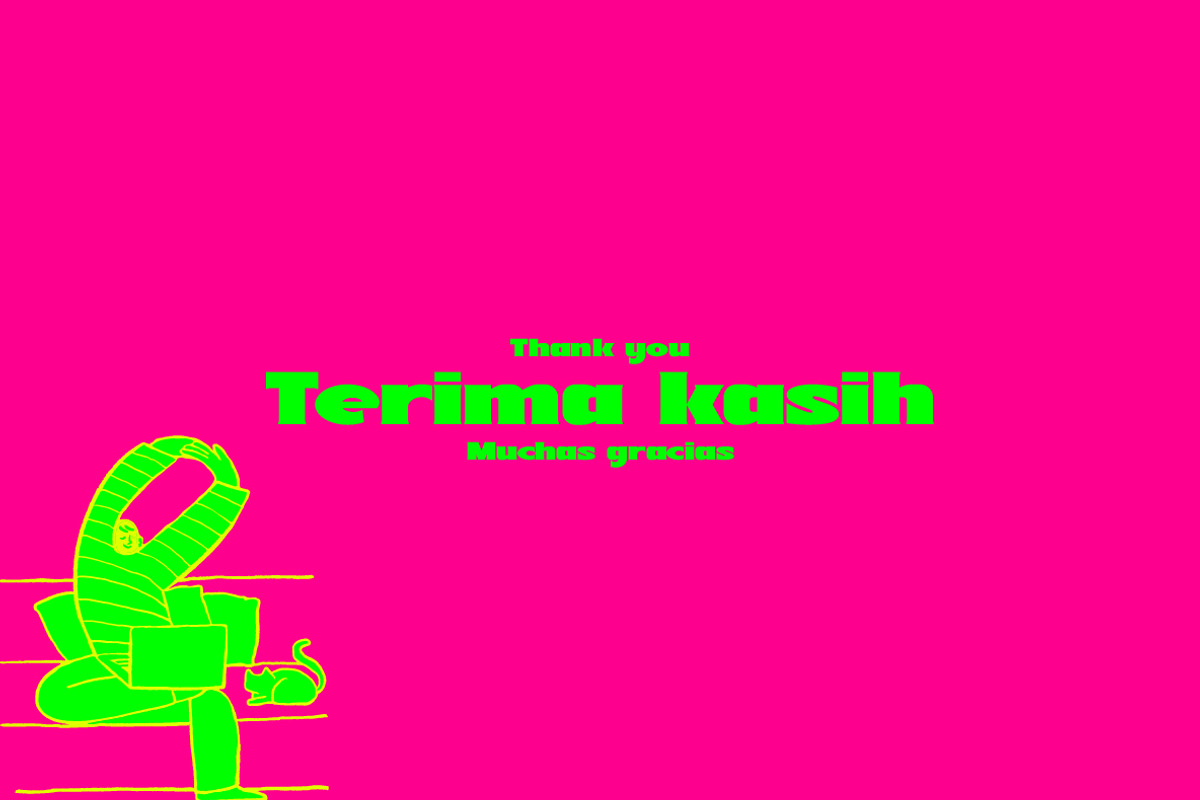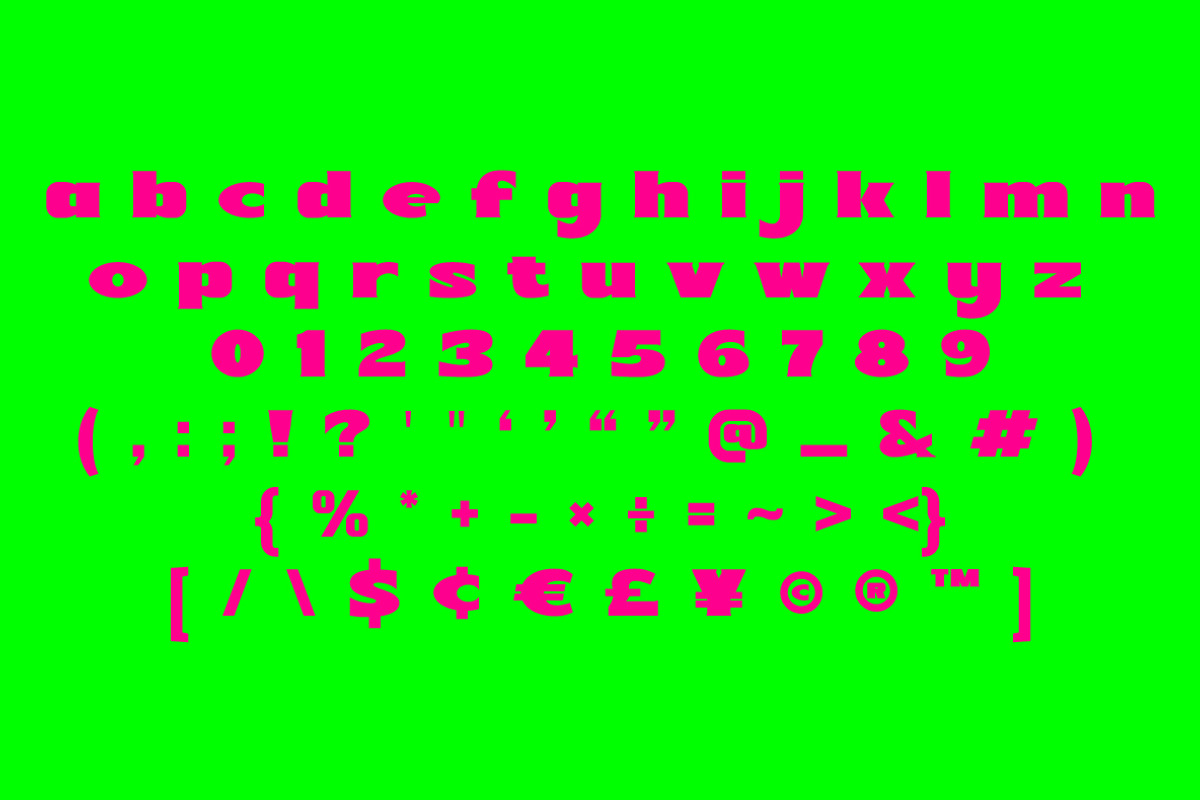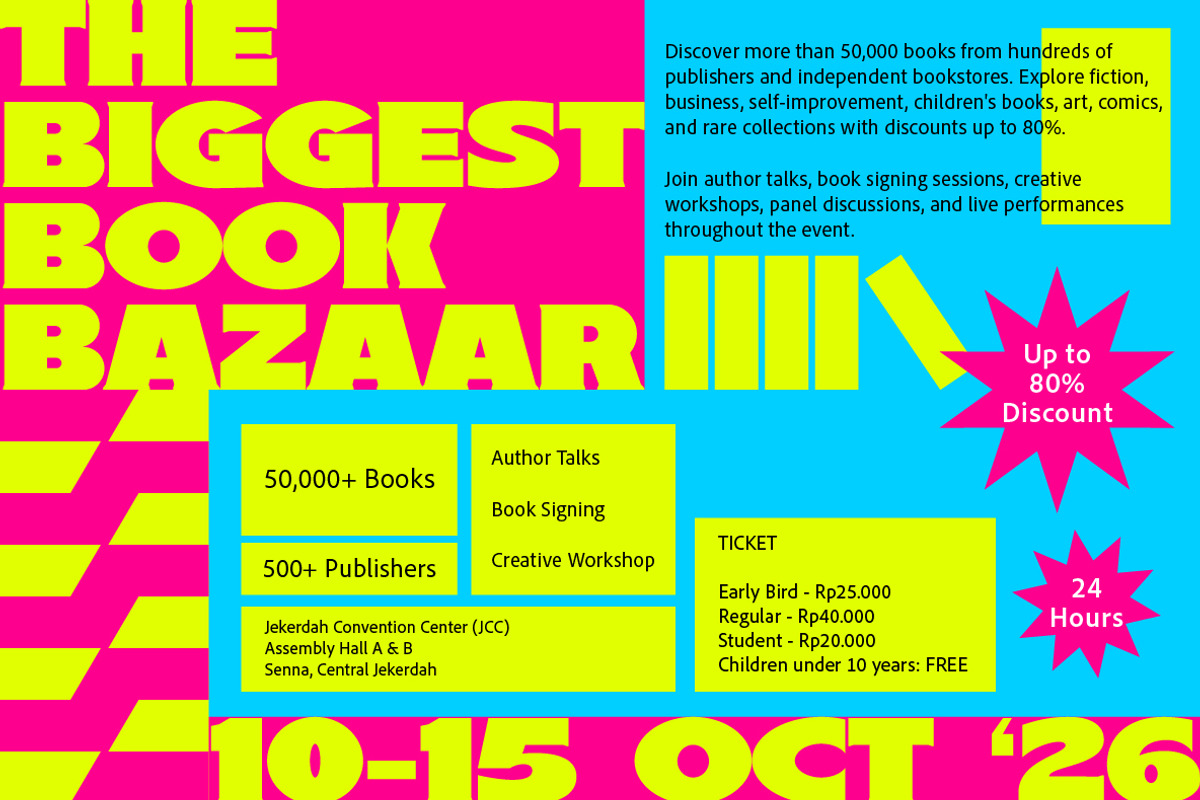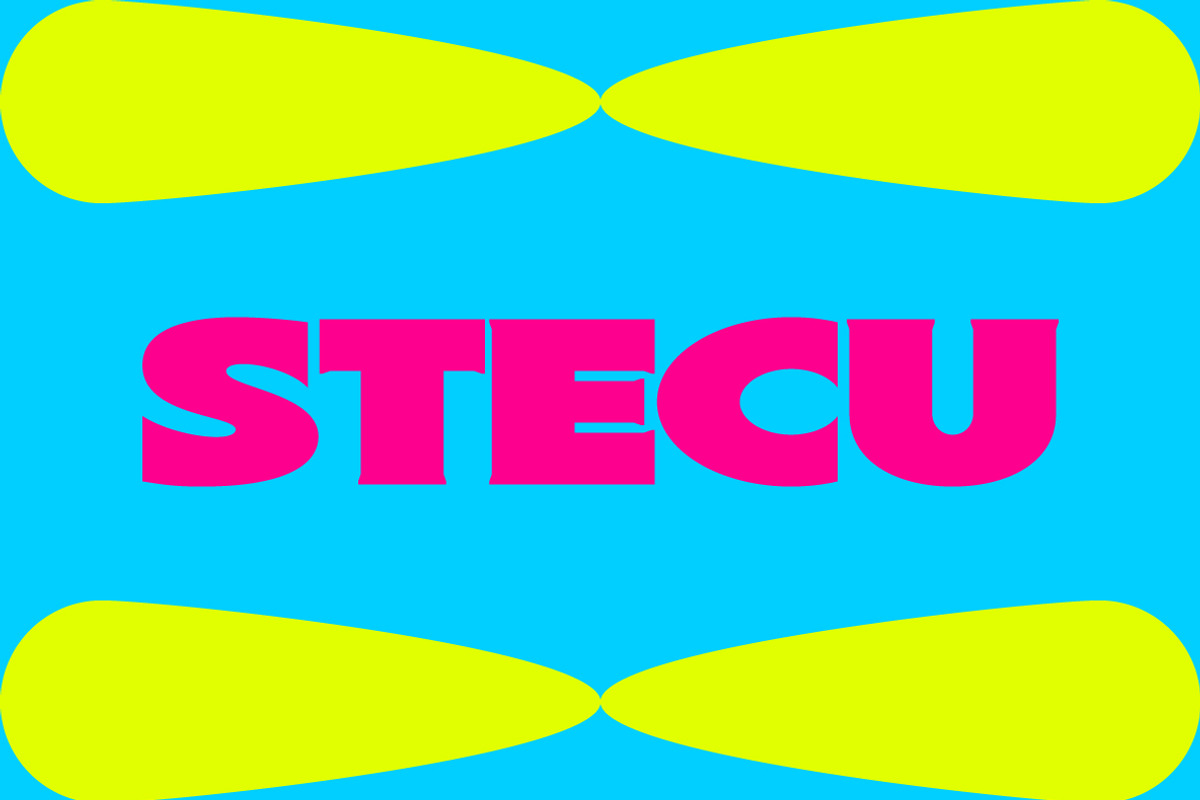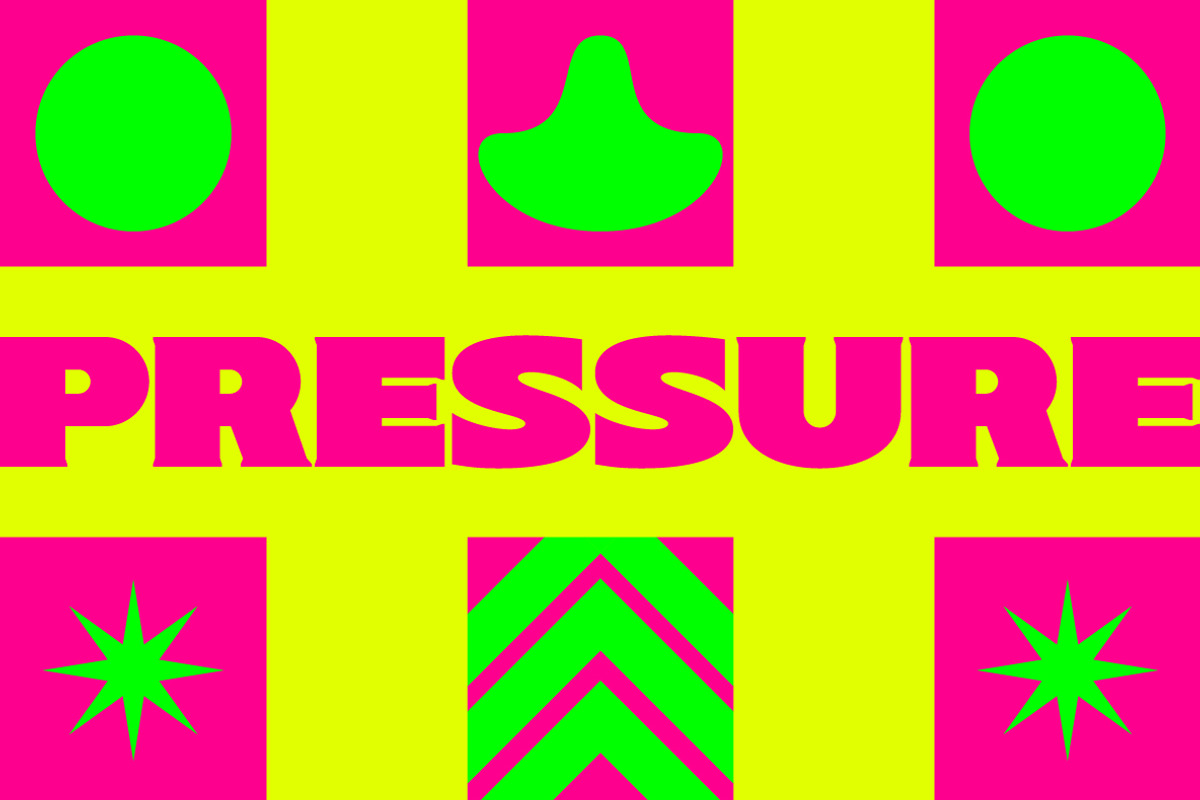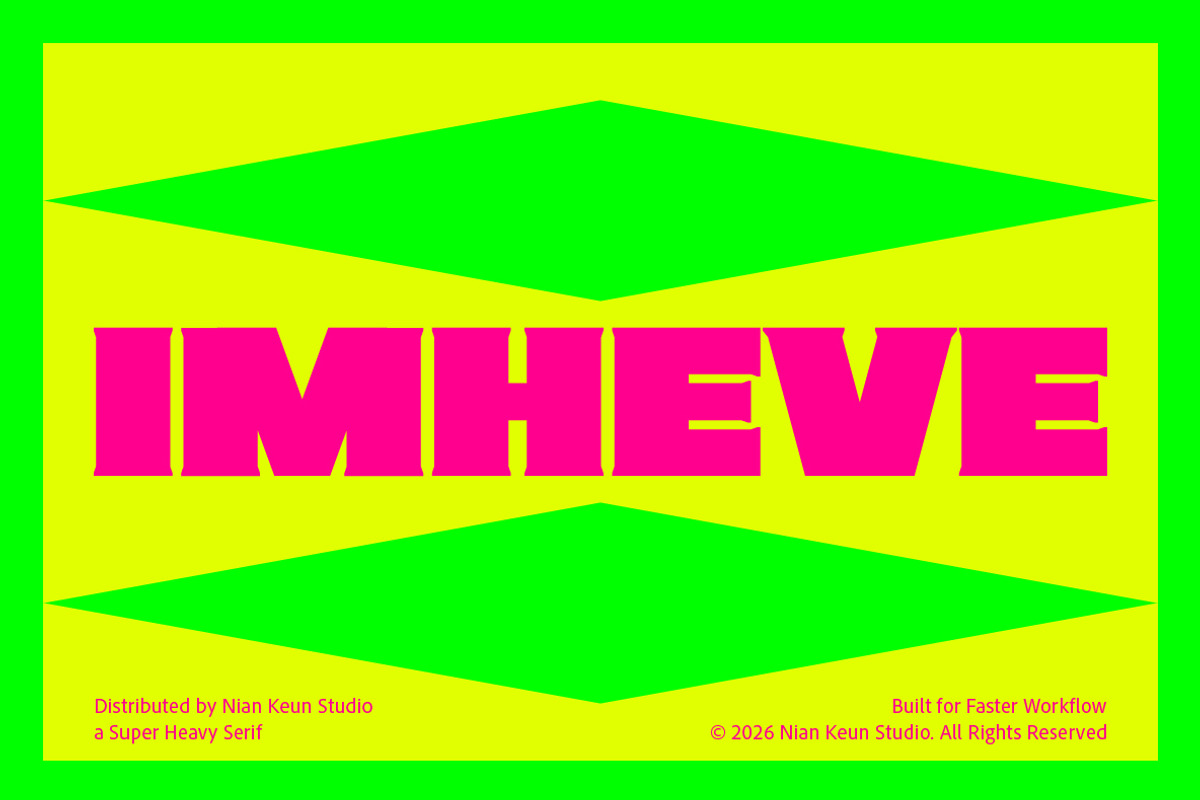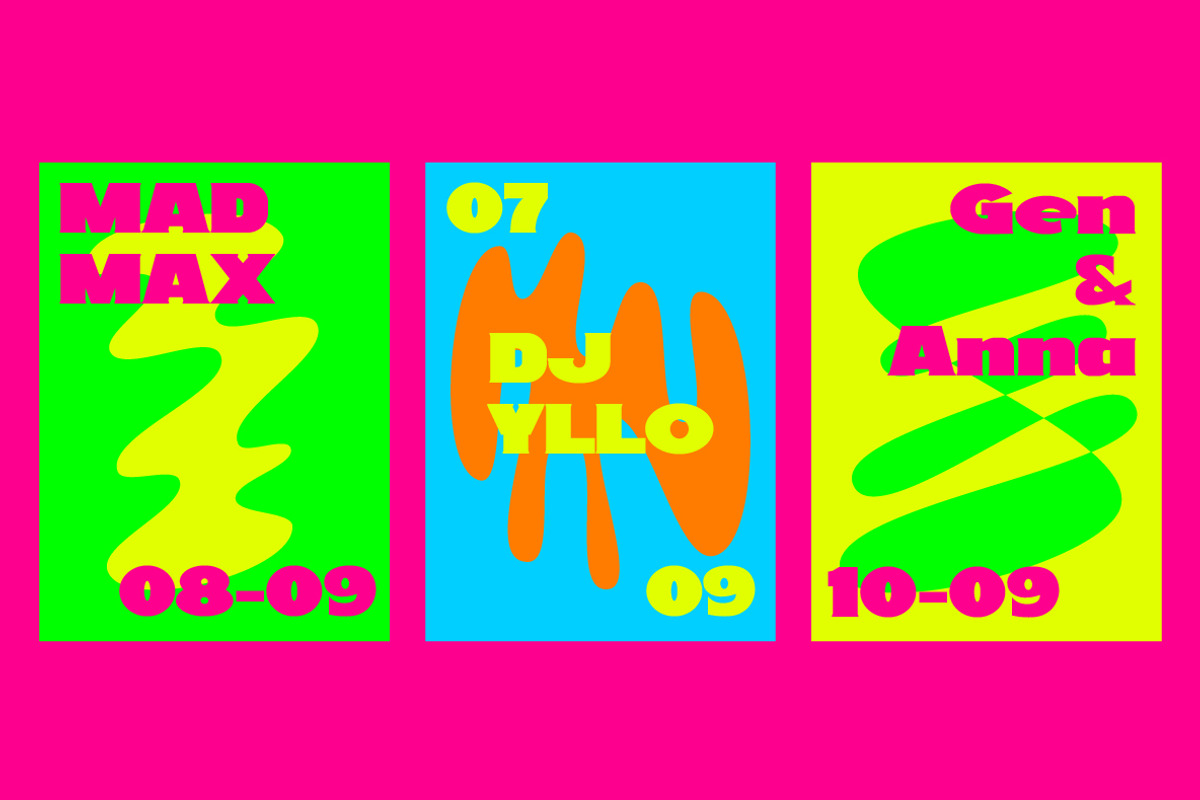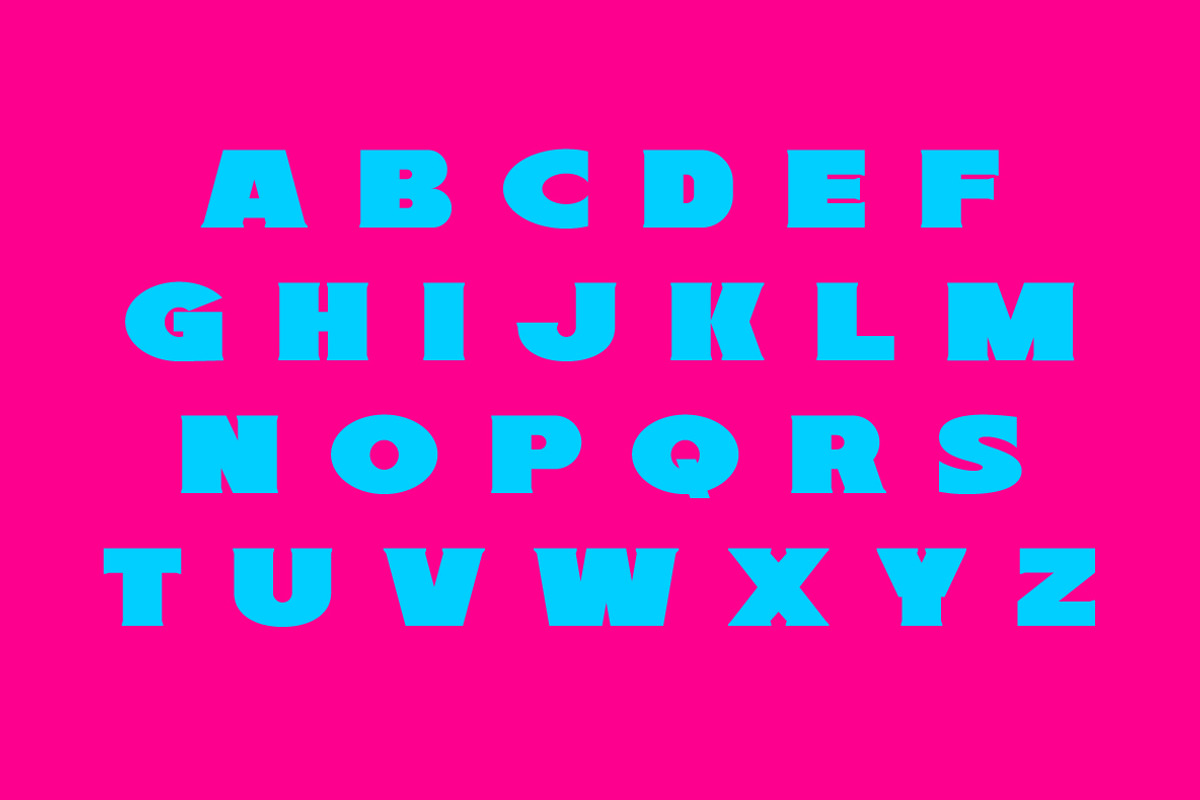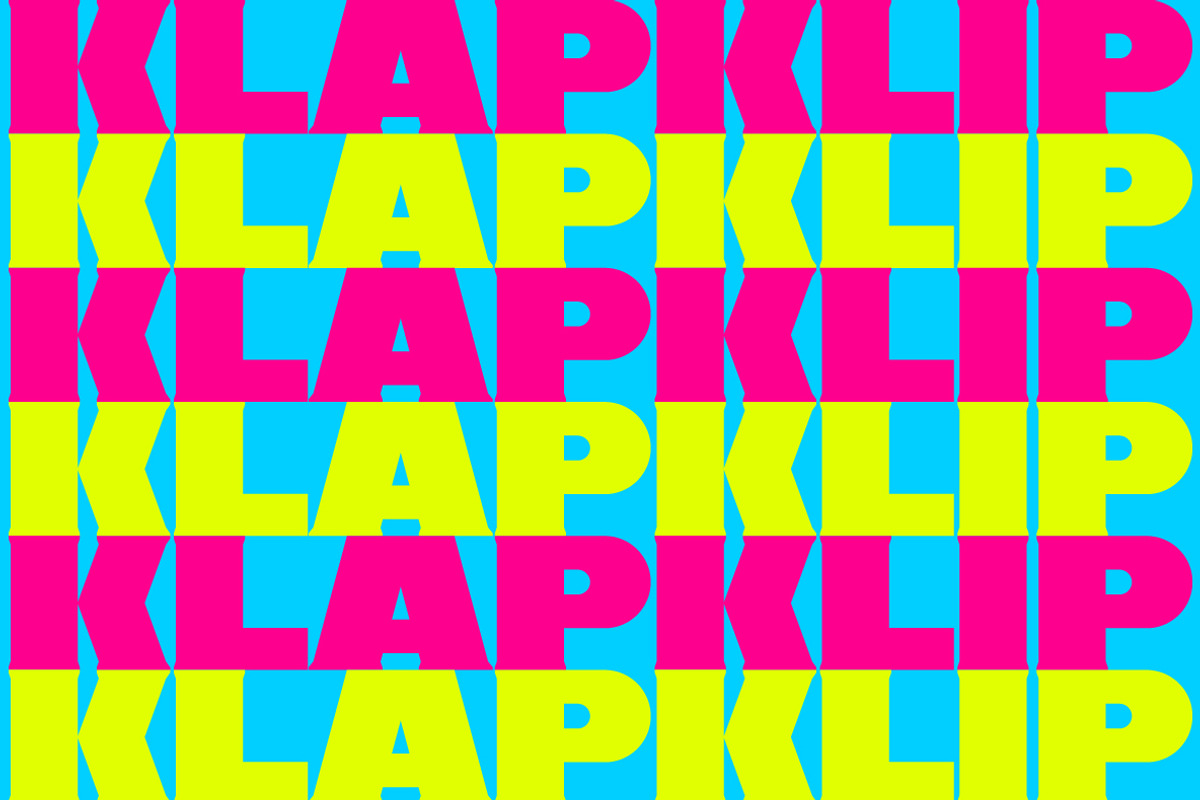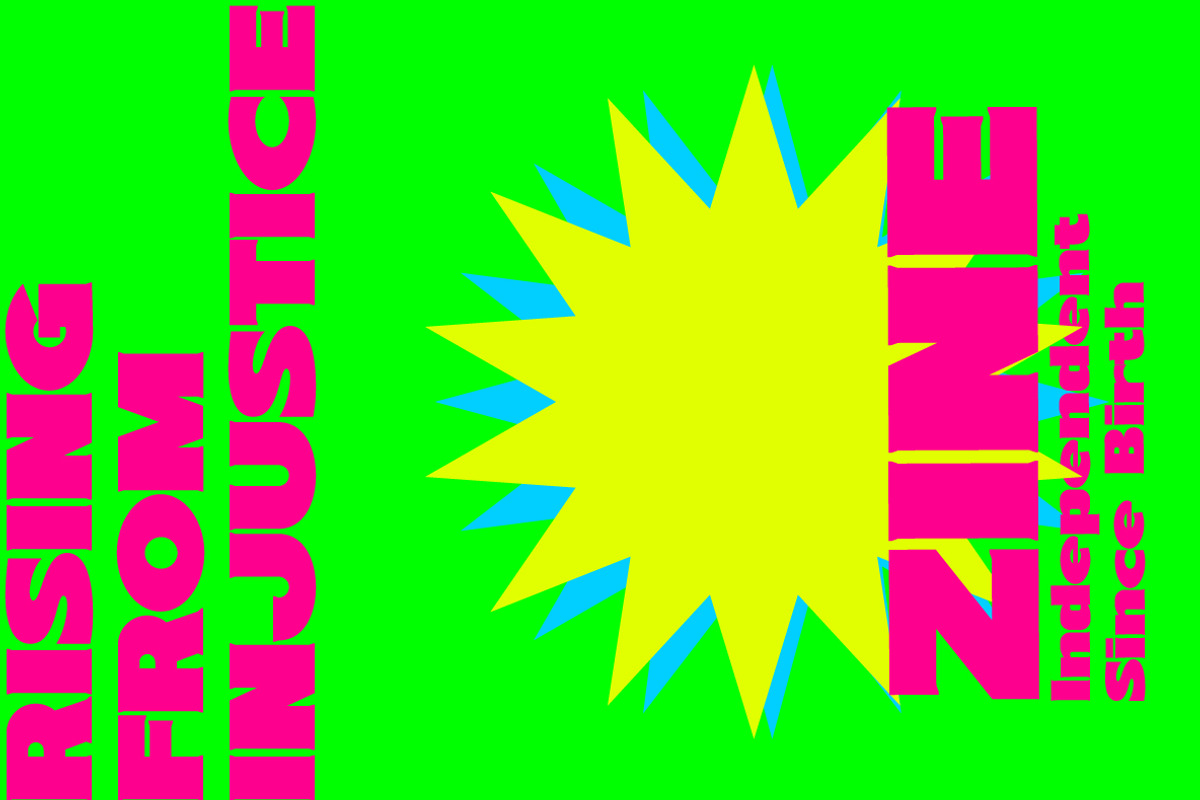
Imheve - Super Heavy Serif Display
IMHEVE is a super heavy serif display font crafted with an intense, bold, and commanding personality. Its massive letterforms combine sharp serif details with strong geometric proportions, creating a powerful typographic presence that immediately draws attention.
Designed primarily for impactful display use, IMHEVE works beautifully across posters, branding, headlines, packaging, editorial compositions, album artwork, and other visual projects that demand a strong and distinctive typographic statement. Its exaggerated weight and solid structure make it especially effective at large sizes, where its unique character can fully stand out.
Branding & visual identity
Logos & wordmarks
Posters & large headlines
Editorial & magazine design
Packaging & merchandise
Album & cover artwork
Advertising & promotional design